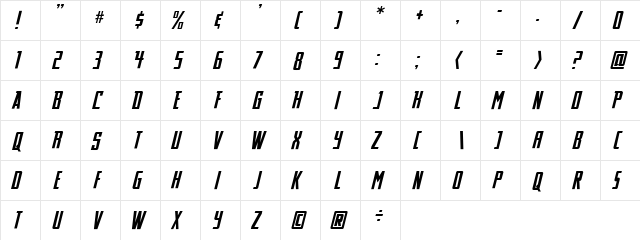
CCStandBy4Action Medium Font Preview
CCStandBy4Action Medium
CCStandBy4Action Medium Font Details
Design Context for CCStandBy4Action Typeface
CCStandBy4Action is a composed and adaptable typeface that performs quietly and consistently across a wide range of design contexts.